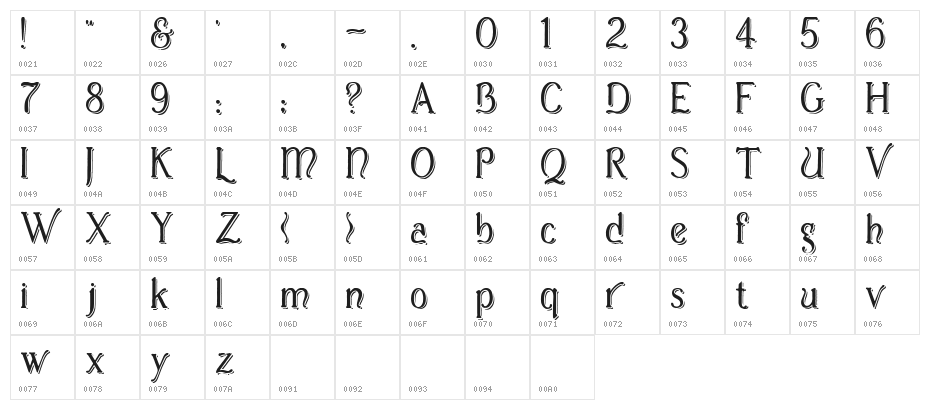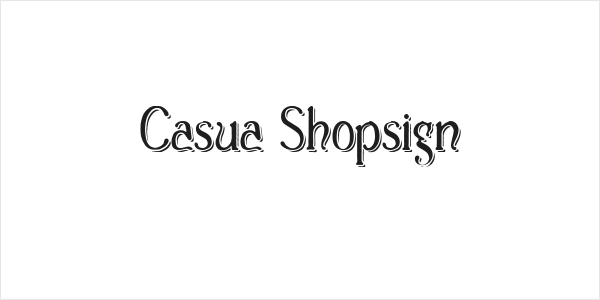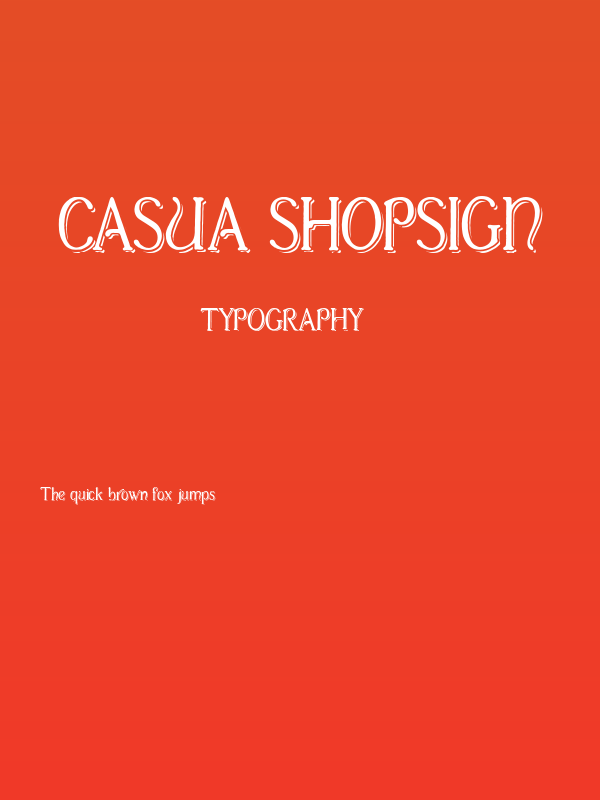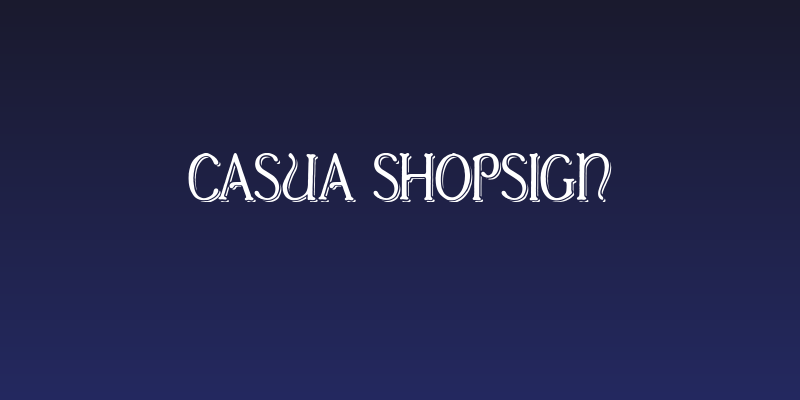
Casua_Shopsign Font
Casua_Shopsign Description
This font features a unique blend of classic and decorative elements, characterized by its bold, flowing strokes and intricate detailing. The uppercase letters are tall and elegant, with a slight curve that adds a touch of sophistication. The lowercase letters maintain a consistent style, with rounded edges and a playful flair. Numbers are bold and clear, making them easily readable. Special characters are designed with the same attention to detail, ensuring a cohesive look across all elements. The overall design is both eye-catching and versatile, suitable for a variety of creative projects.
Proposed ProjectsIdeal for shop signs, branding, posters, and creative design projects.